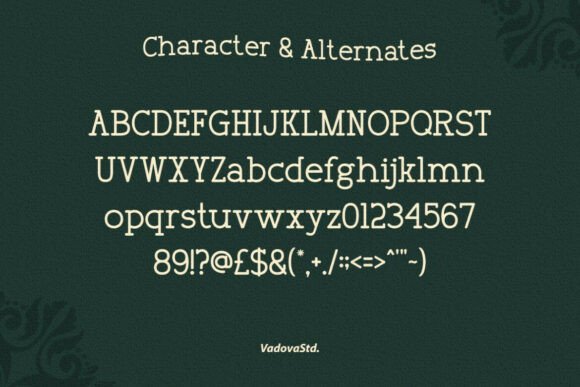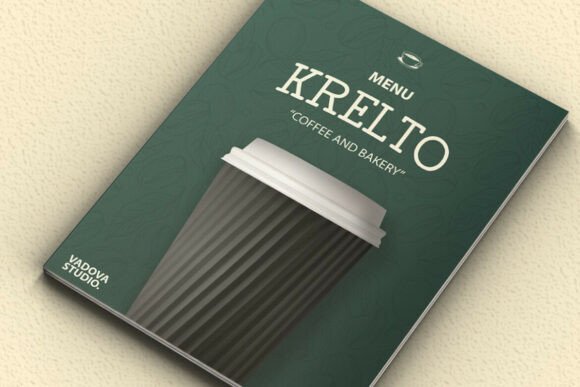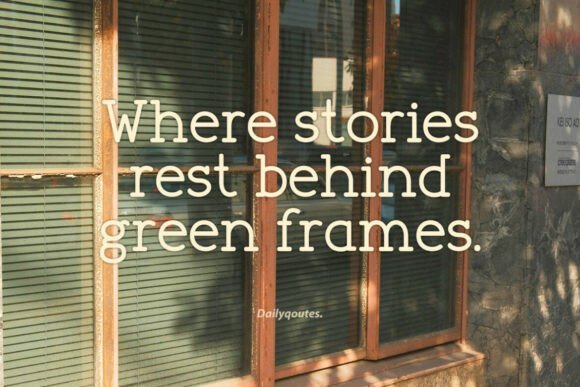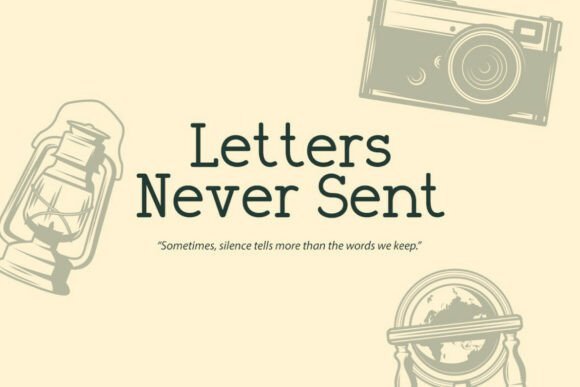
Fogakie Font
Fogakie is an old-style serif font with a warm, nostalgic character and subtle modern refinement. Its rounded terminals and slightly condensed form give it a friendly yet classic voice, perfect for conveying trust, tradition, and timeless charm. Whether you’re designing editorial spreads, book covers, quote graphics, or lifestyle branding, Fogakie brings a sense of calm and authenticity. With support for alternates and a full range of punctuation, this font works beautifully in both digital and print environments, offering quiet sophistication in every word.